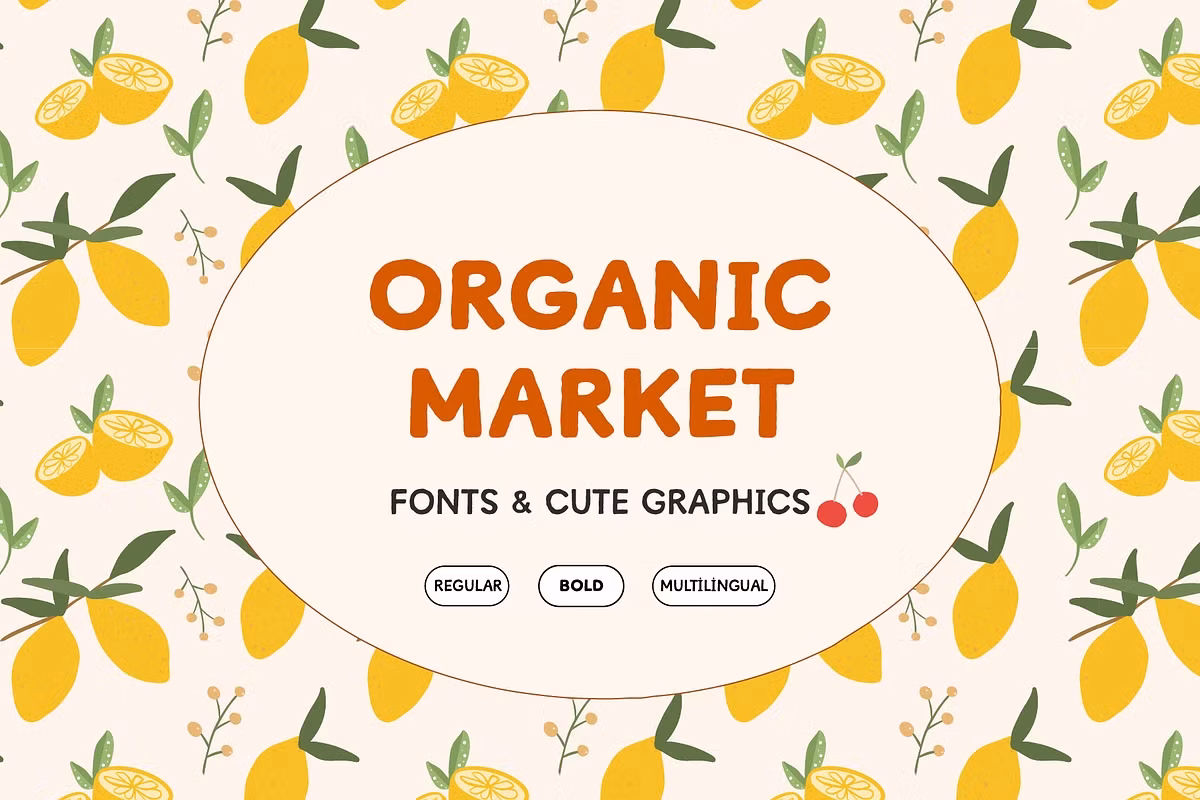
Organic Market Handmade Font Free Download
Please note, to use this font for commercial purposes, you must purchase the full version. Organic Market is a charming handmade font that captures the essence of natural, rustic style. With its organic, hand-drawn letterforms, this font is perfect for creating branding, packaging, invitations, and designs that require an authentic, artisanal touch. Whether you're working on a boutique brand, an eco-friendly product, or a rustic-themed event, Organic Market adds a personal and earthy feel to your work. Test it out and enjoy free download access for personal use. Experience the handcrafted beauty of Organic Market Handmade Font Free Download before purchasing the commercial license. Add a natural, organic vibe to your designs with Organic Market.